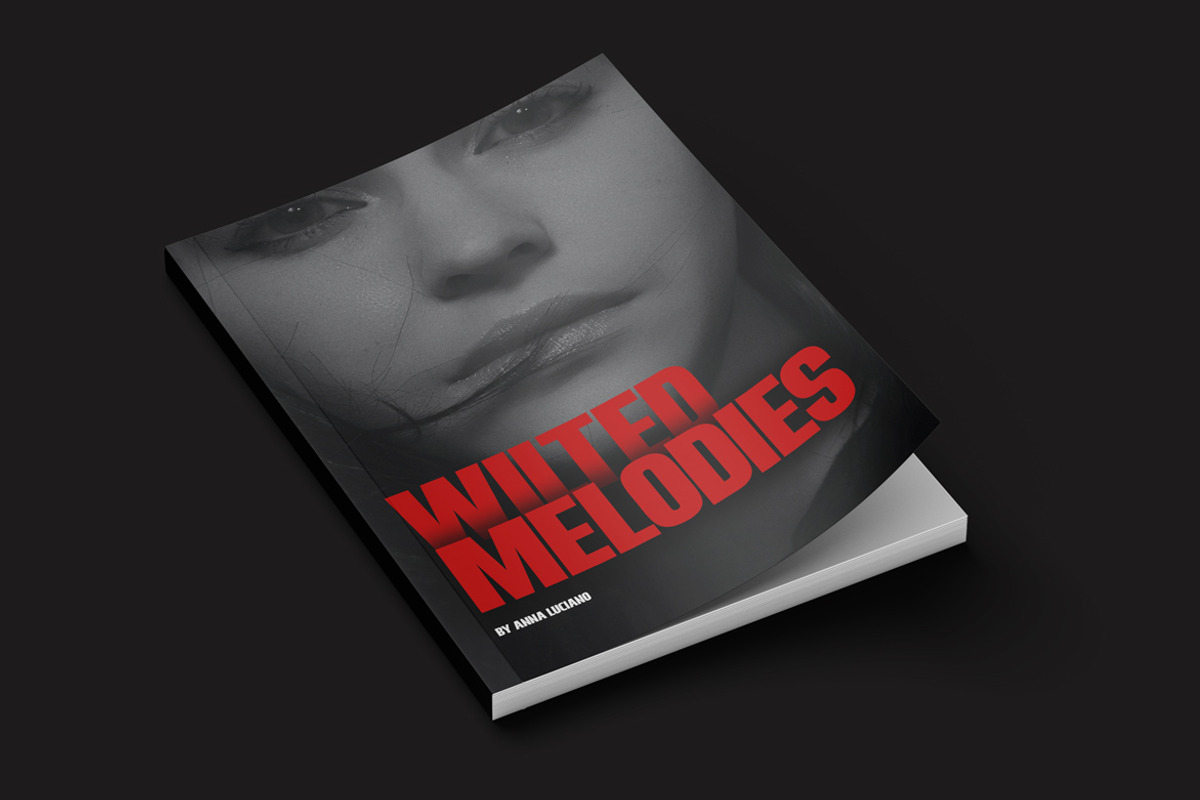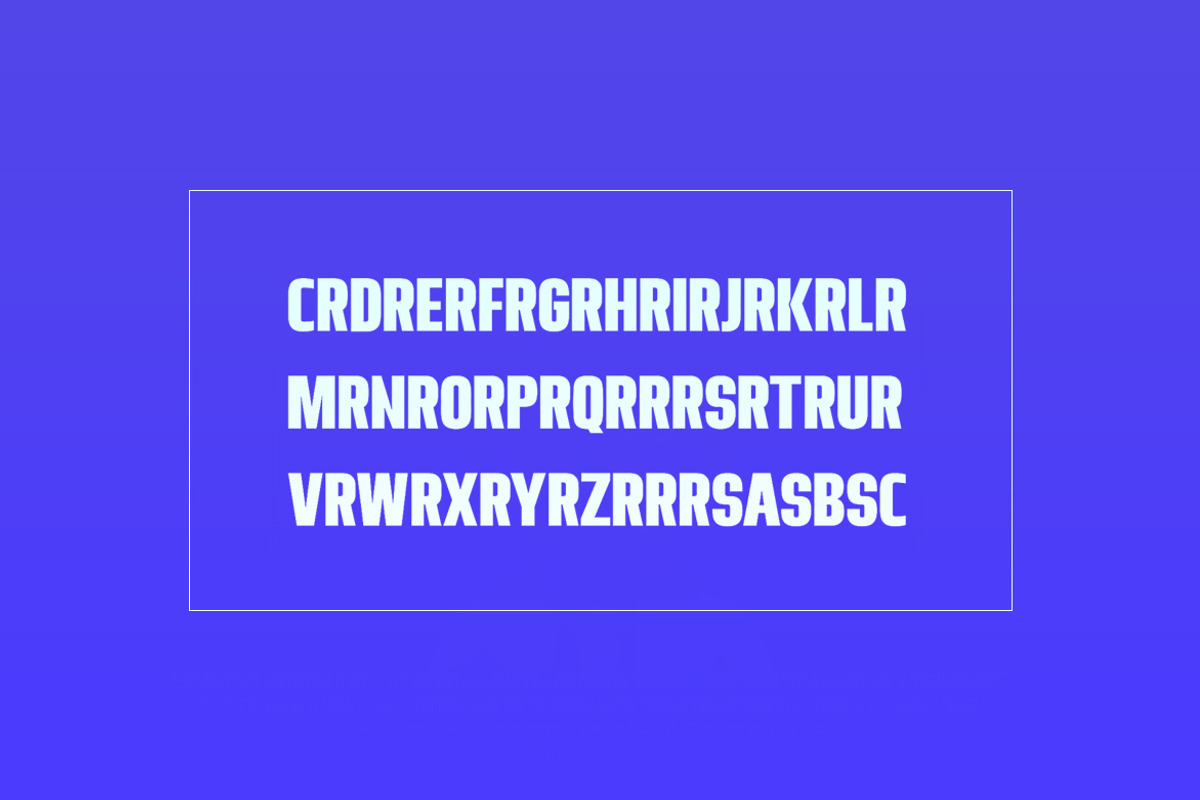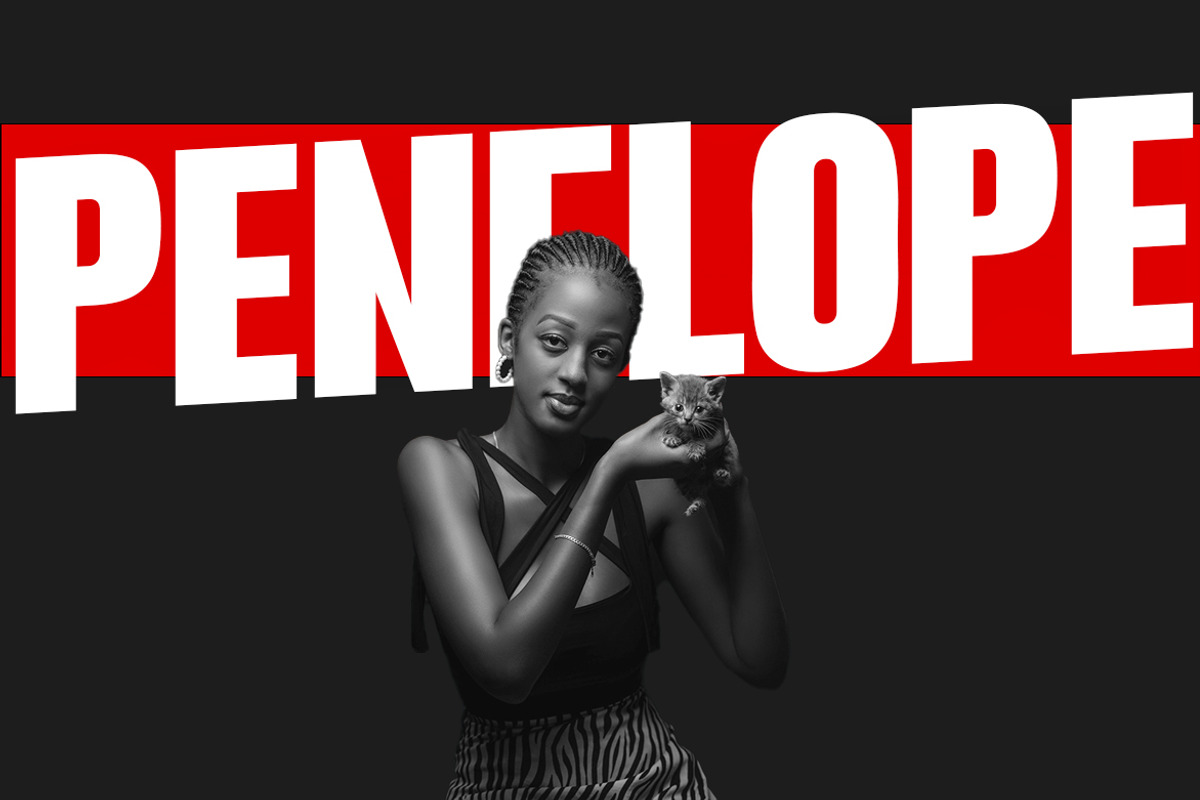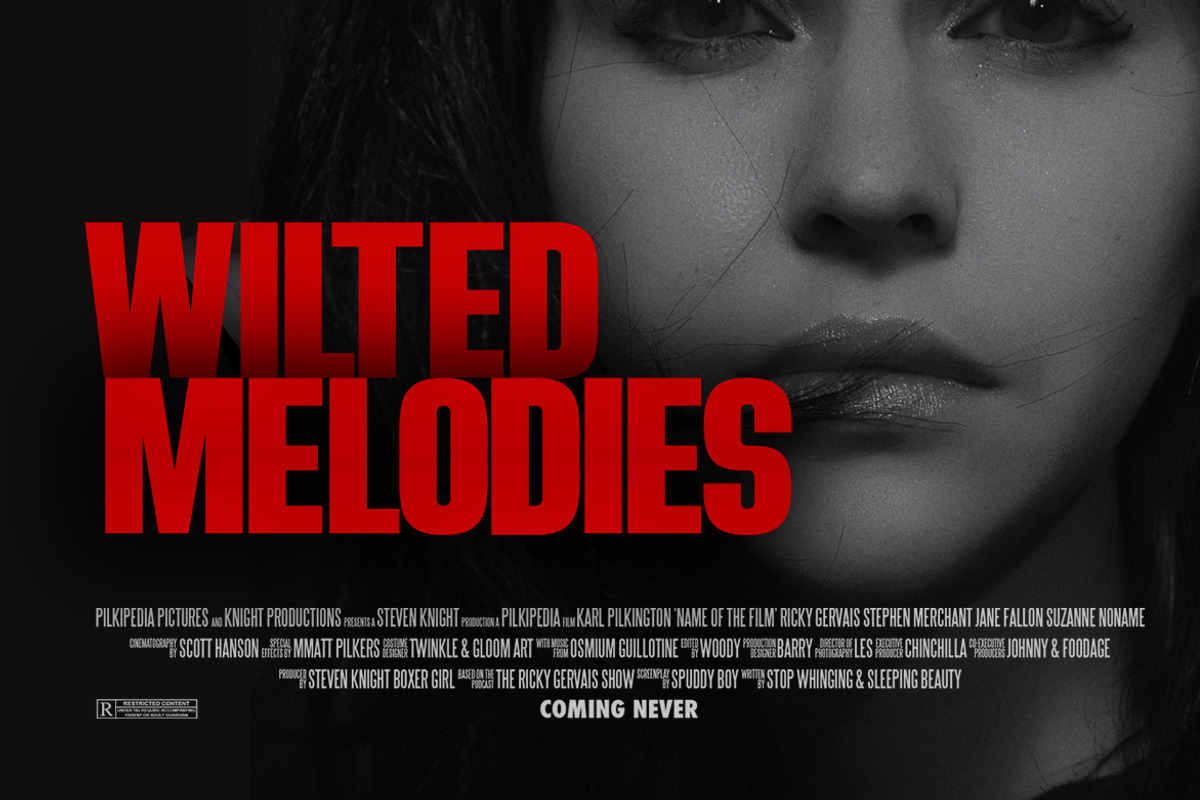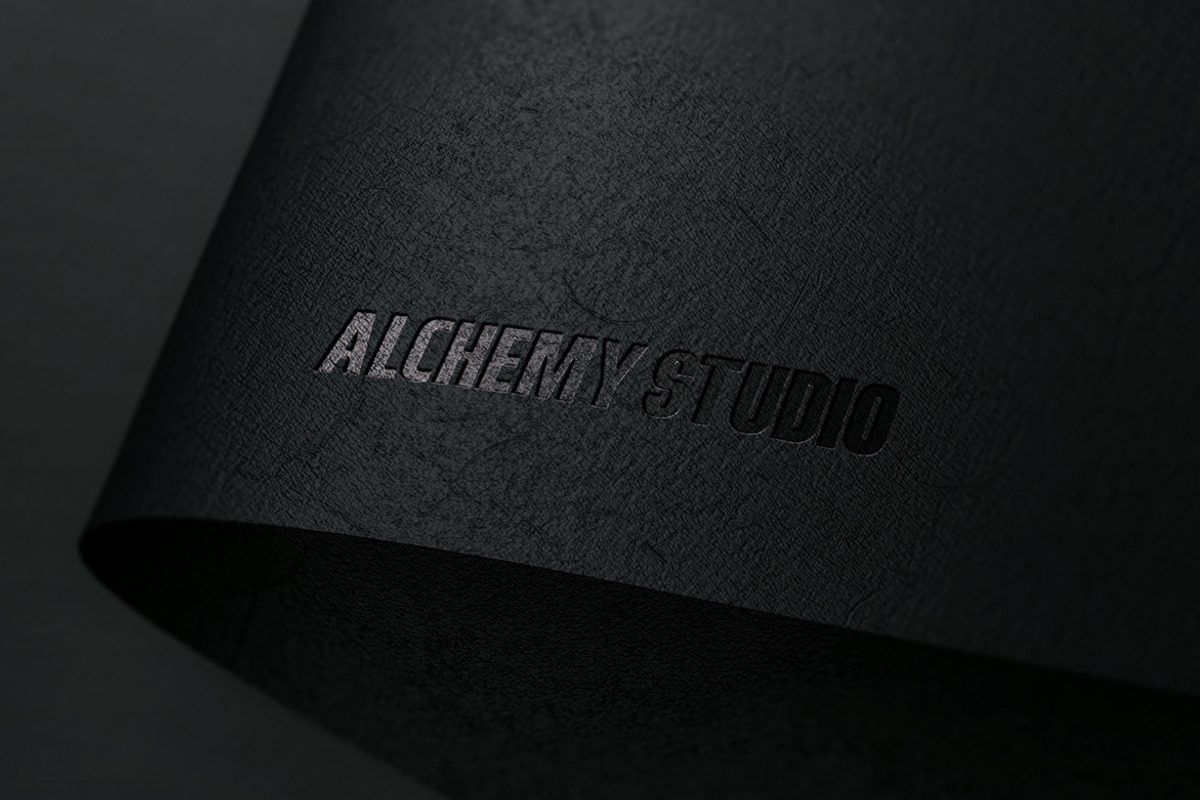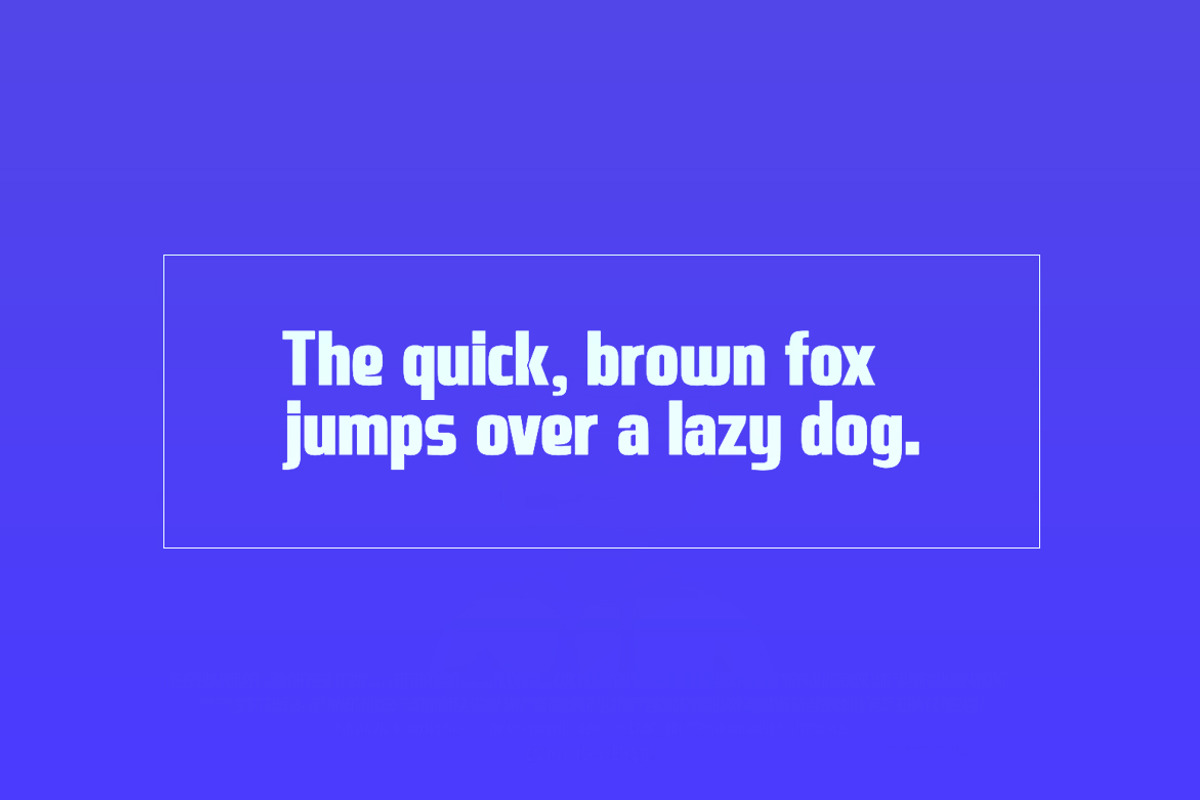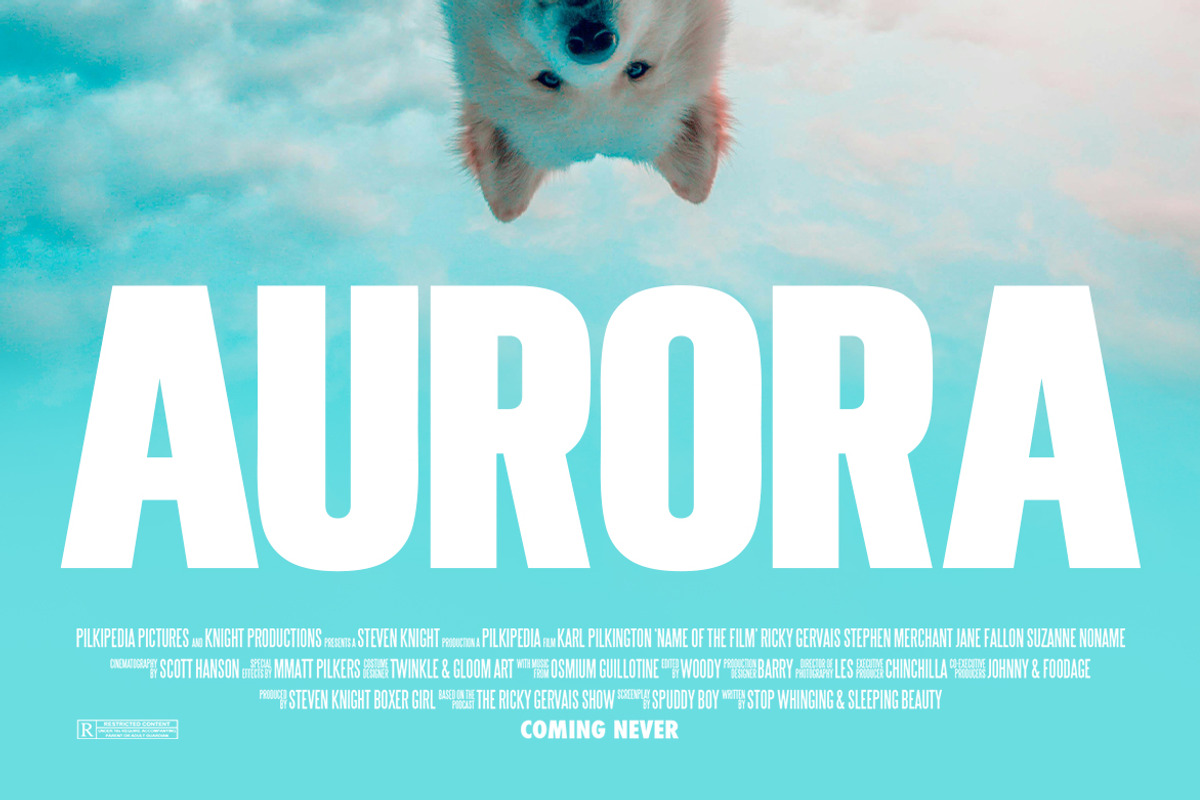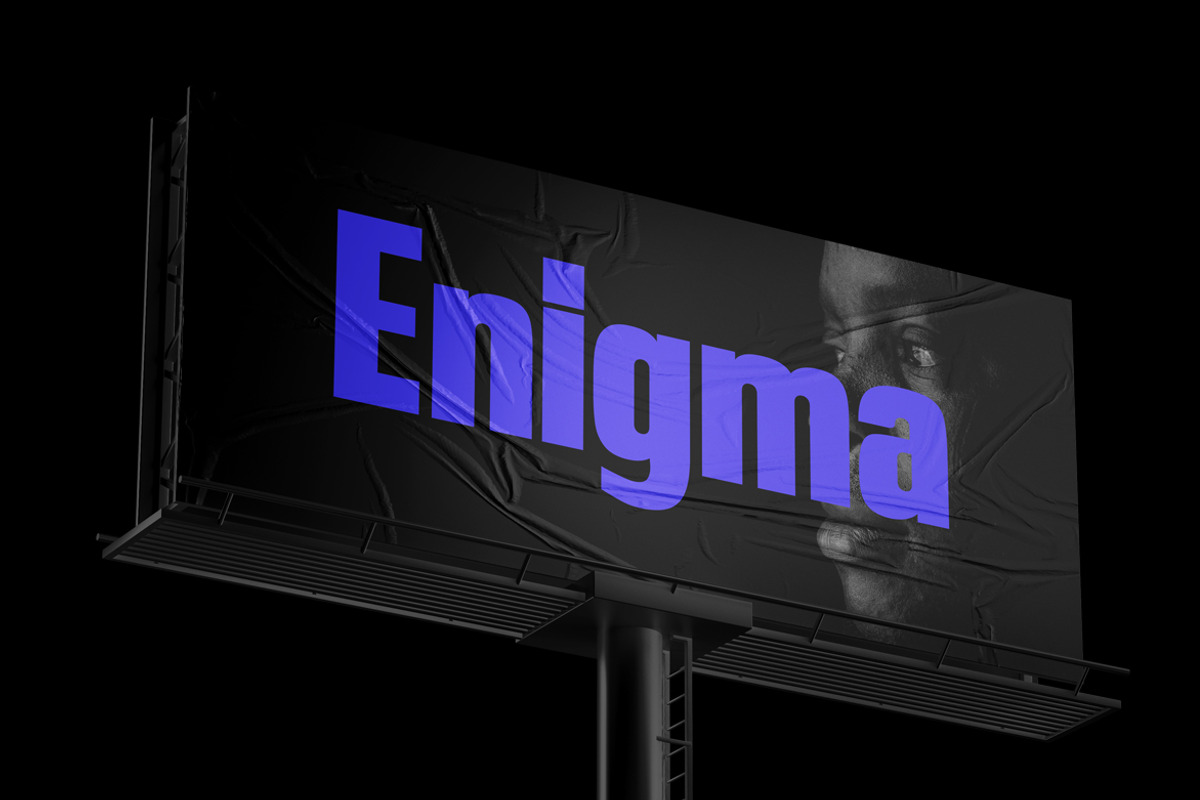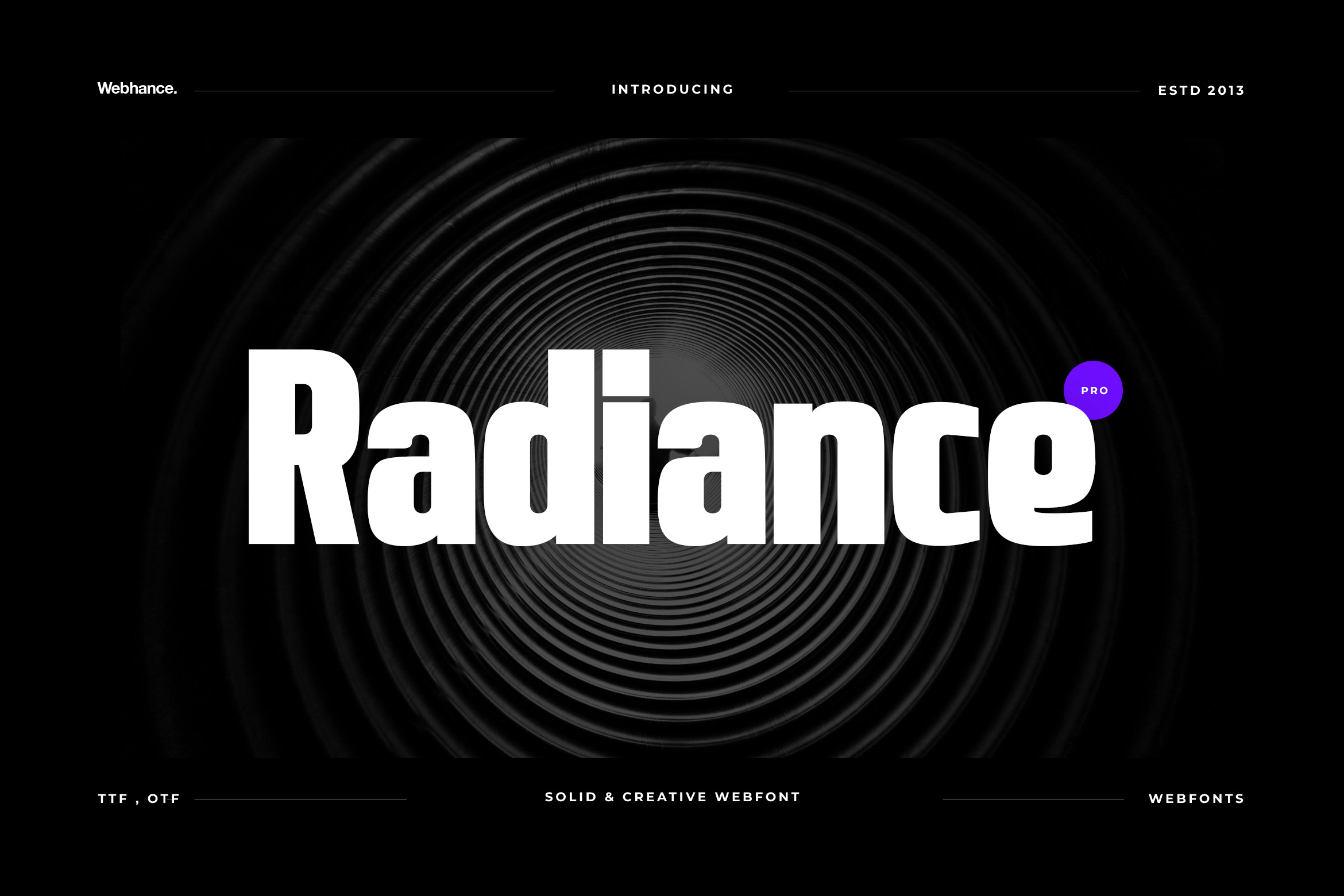
Radiance Modern Sans-Serif Font
Radiance Typeface: Illuminate Your Designs
Introducing “Radiance,” a captivating font meticulously crafted for versatility and visual impact. With a harmonious blend of lowercase and uppercase glyphs, Radiance emanates a modern and dynamic aura, making it the perfect choice for a myriad of creative applications.
A perfect blend of sophistication and modernity, it is ideal for film posters, social media thumbnails, social media posts, and captivating branding. Every character is crafted for expressive clarity, ensuring your text stands out with energy and flair. Tailored for the digital age, Radiance effortlessly elevates your online presence, adding a touch of radiance to video thumbnails and social media announcements. Perfect for professional branding, its clean lines and contemporary style make it a memorable choice for impactful logos and materials.